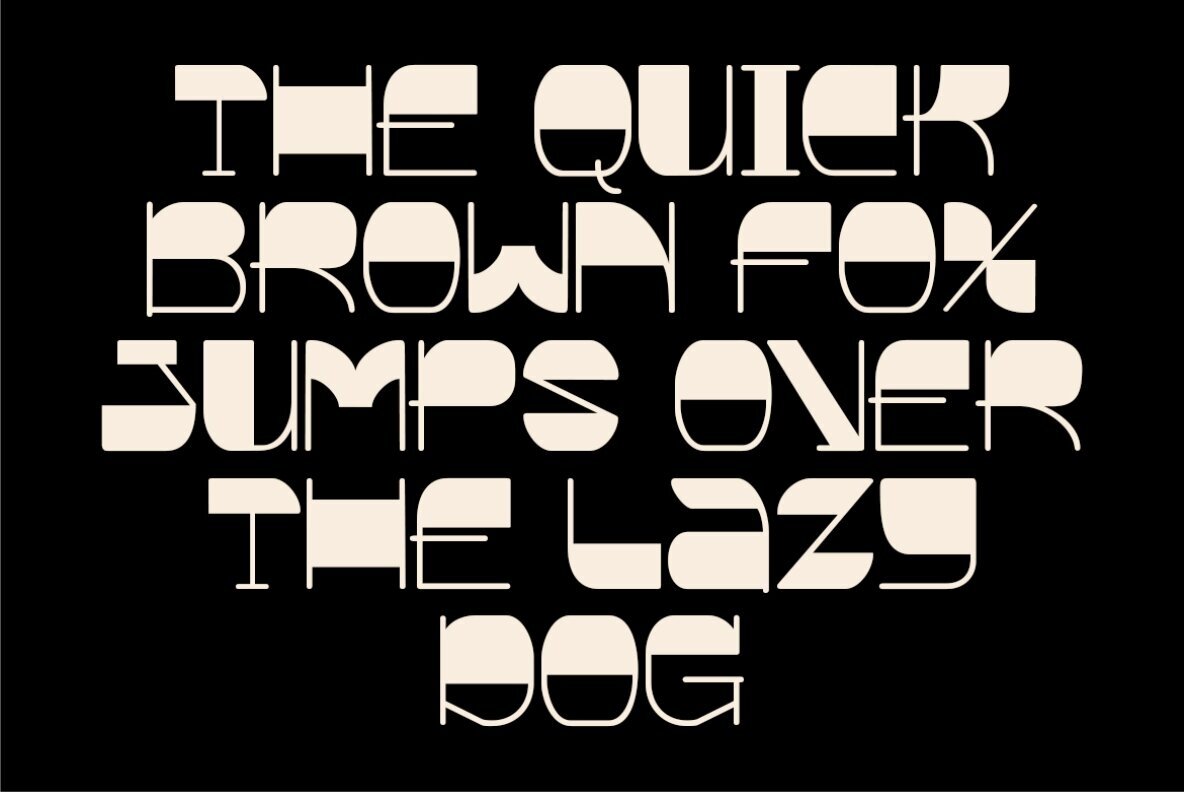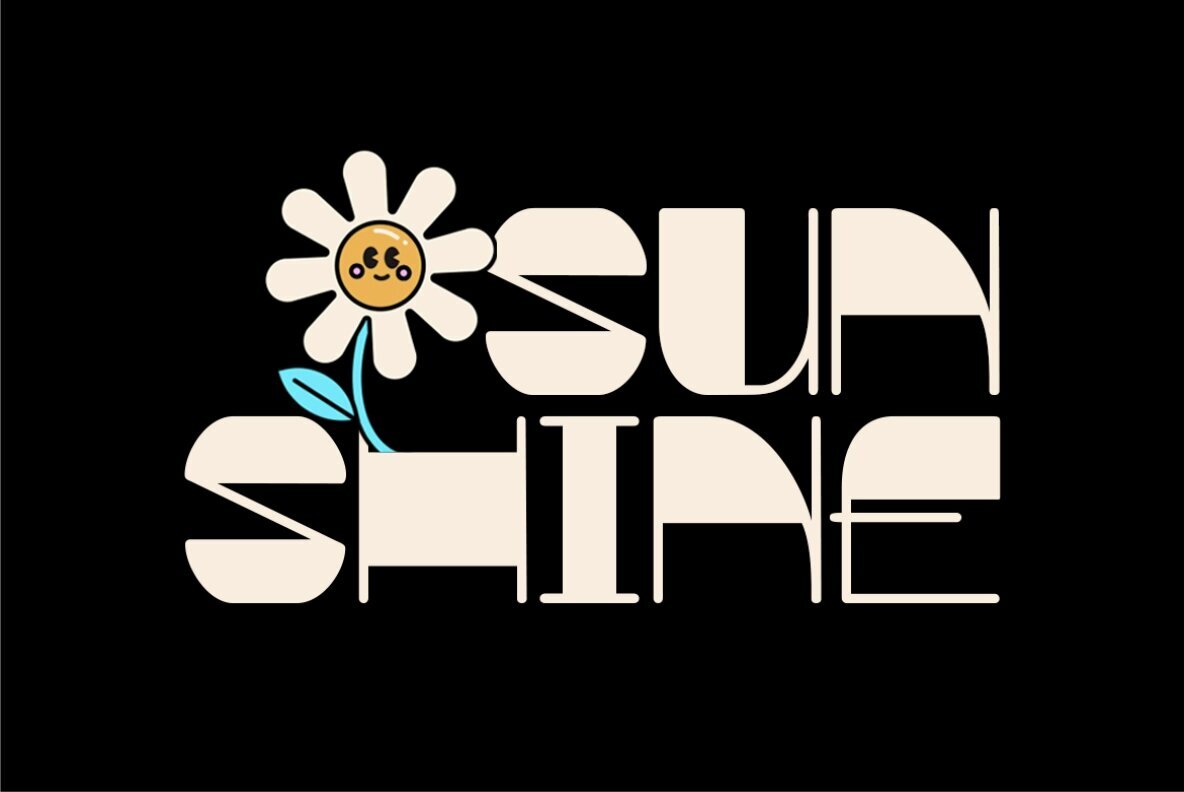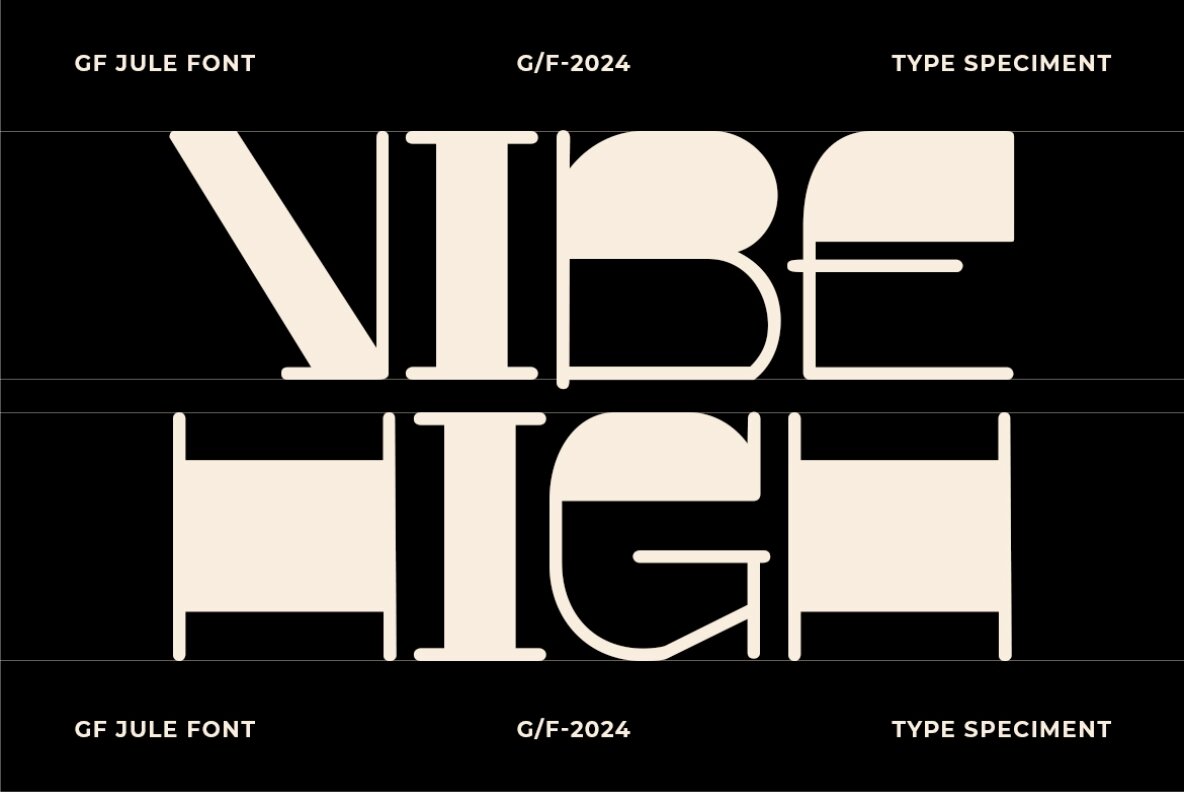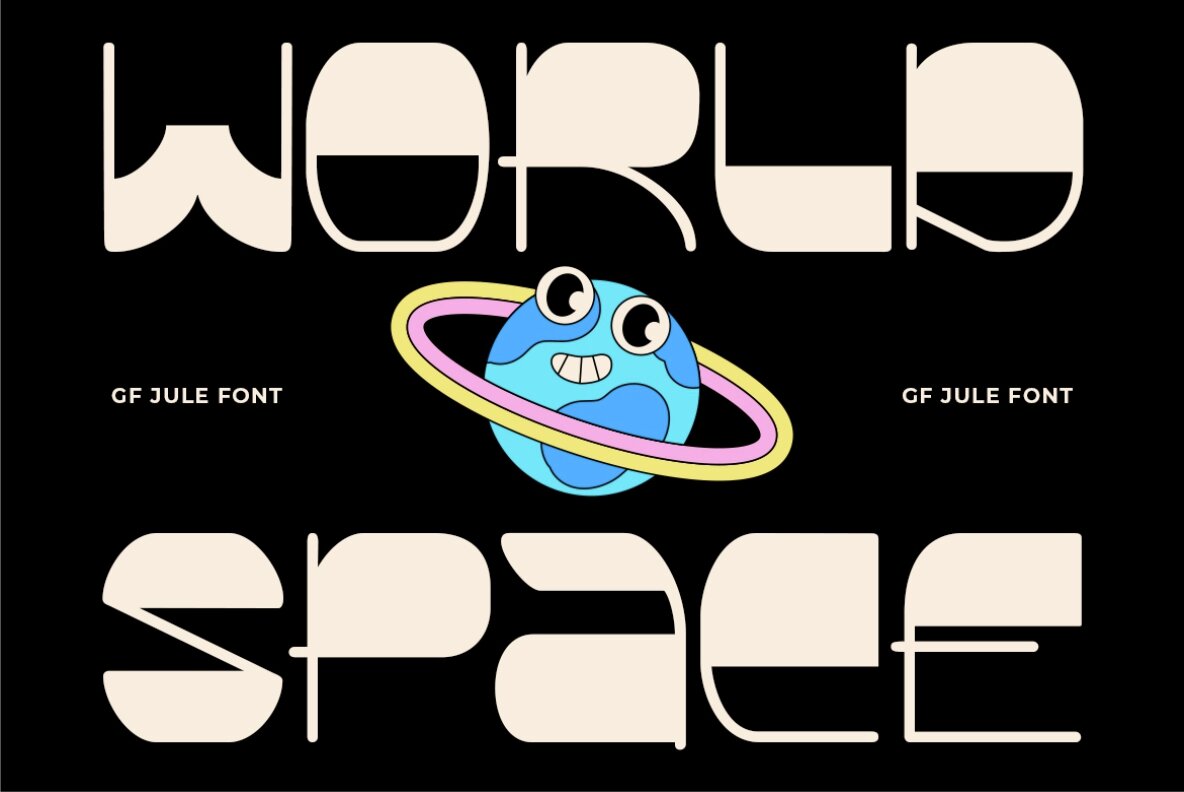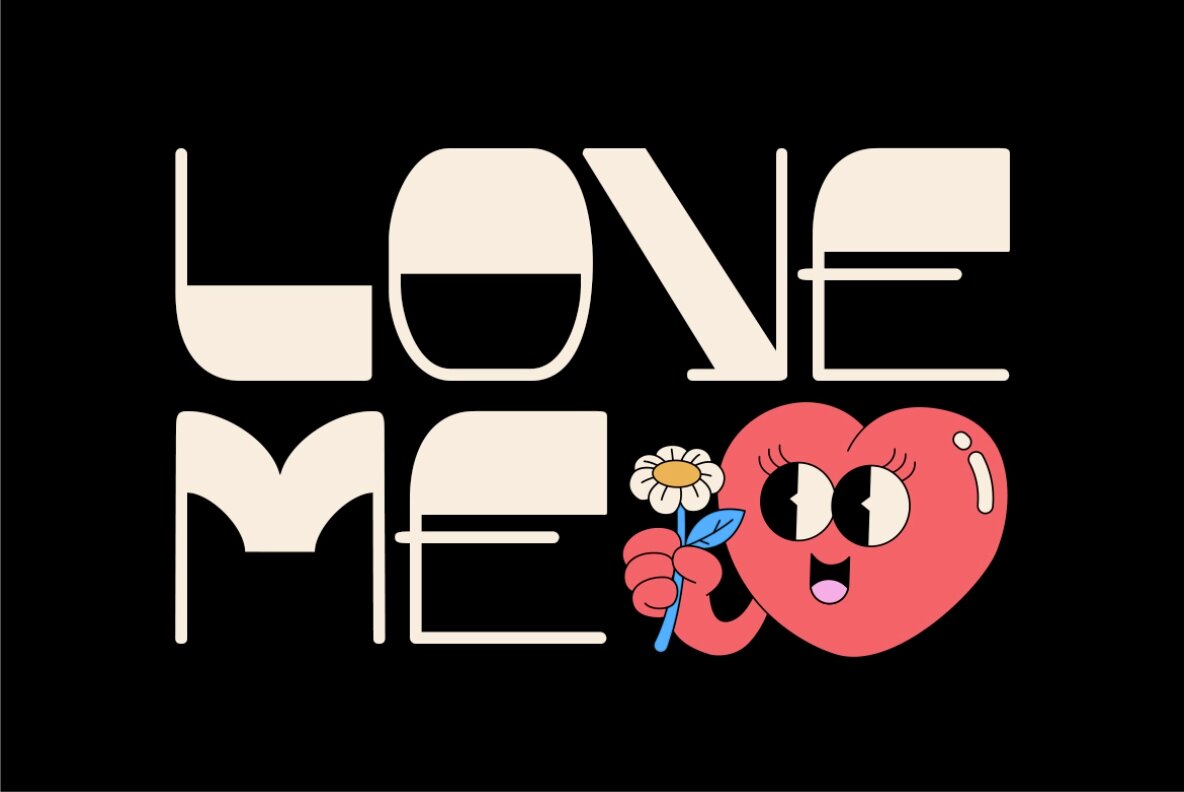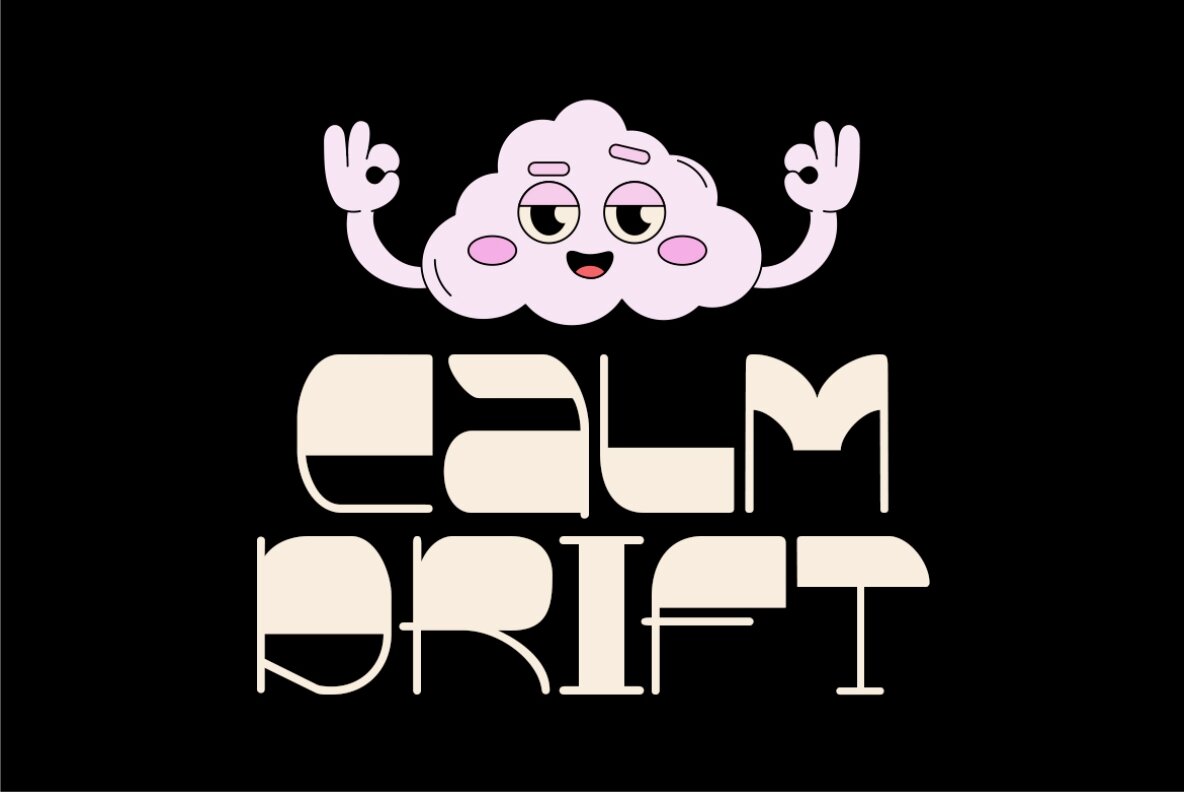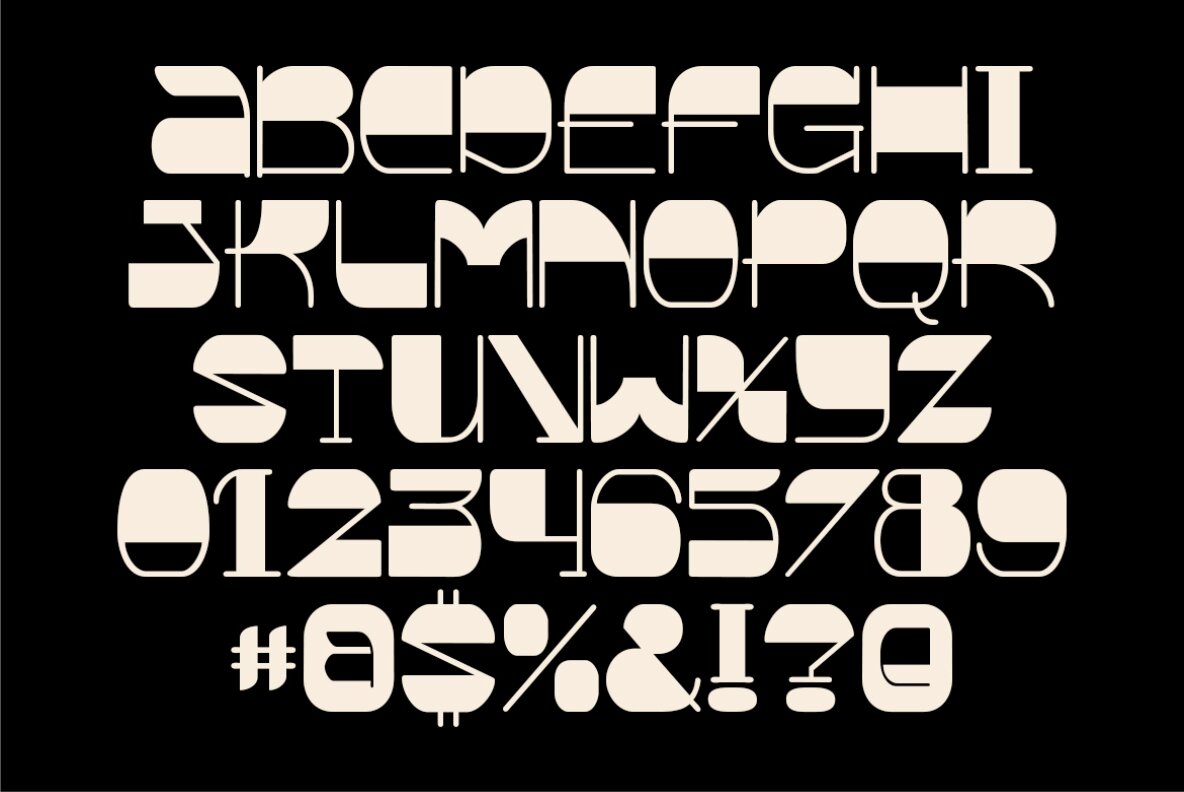
Groovy Jule Font
GF Jule
Groovy Jule is a unique display font that features a funky typeface, exuding a playful and energetic vibe. With its distinctive design and quirky style, this font is perfect for adding a fun and eye-catching touch to any project. Whether used for headlines, logos, posters, or any other creative endeavor, Groovy Jule is sure to make a statement and catch the eye of the audience.